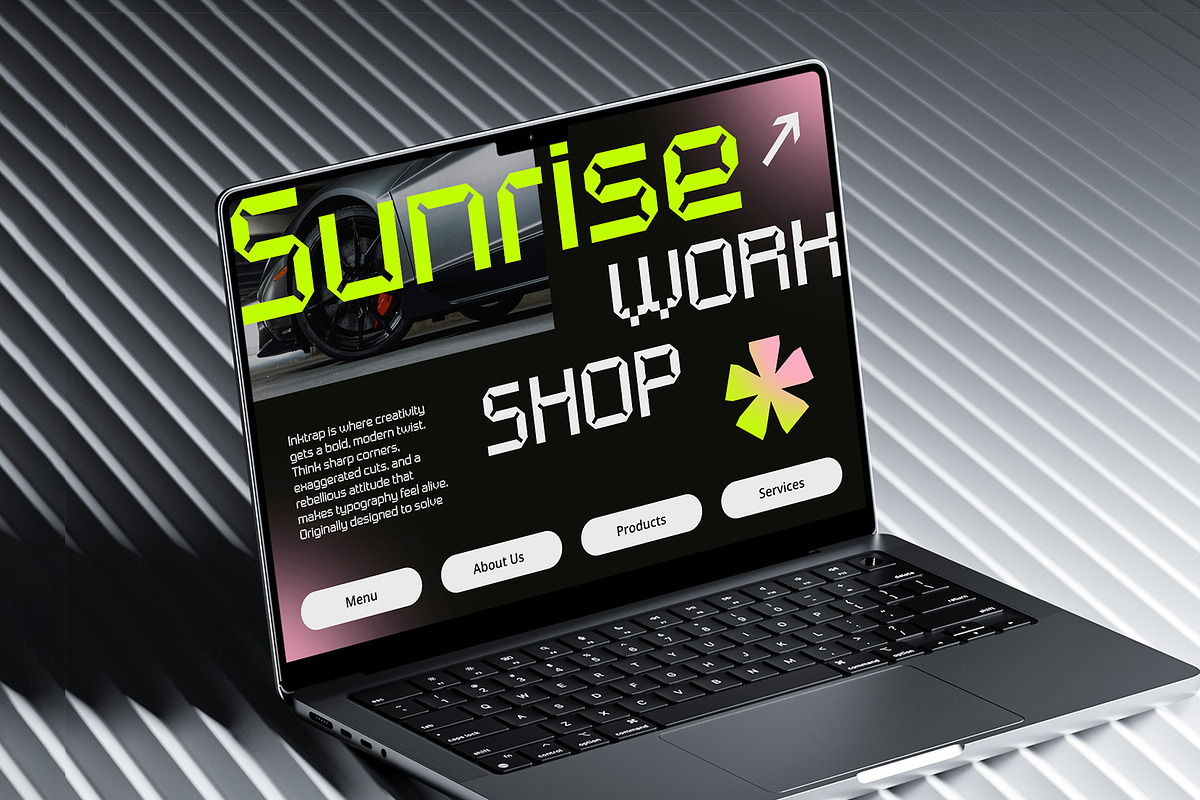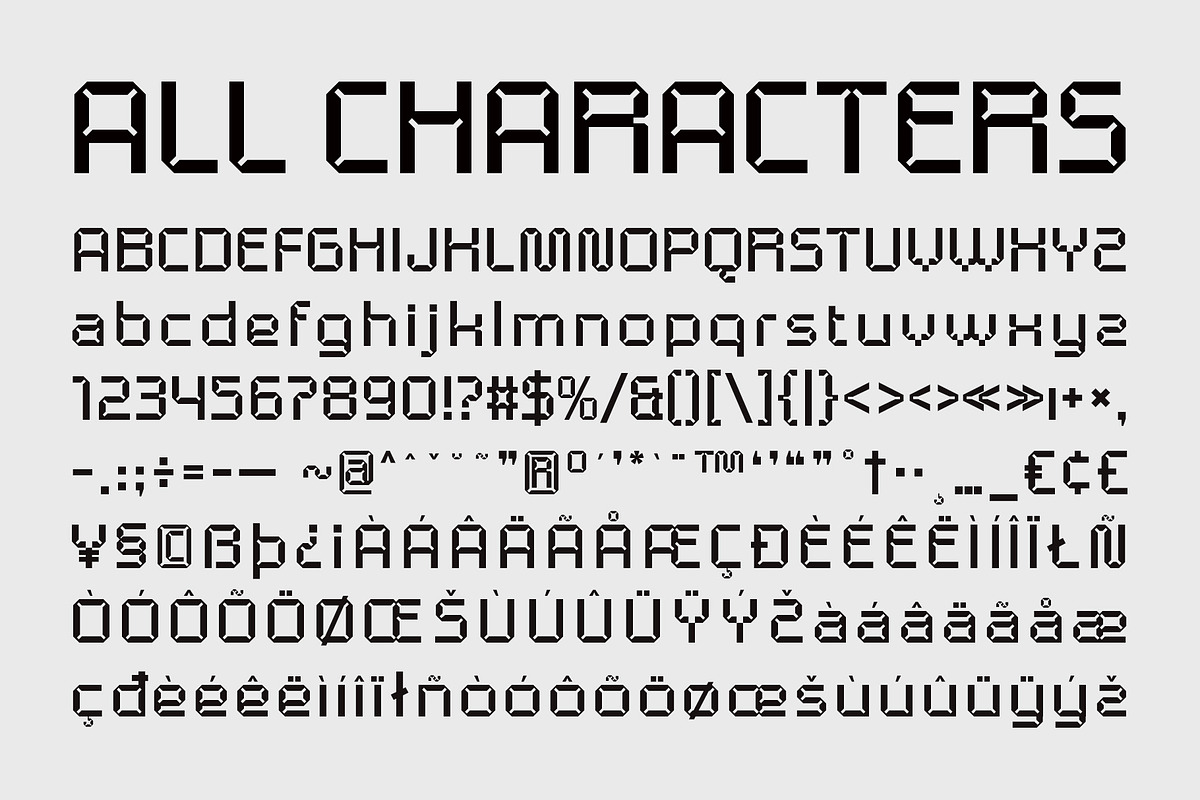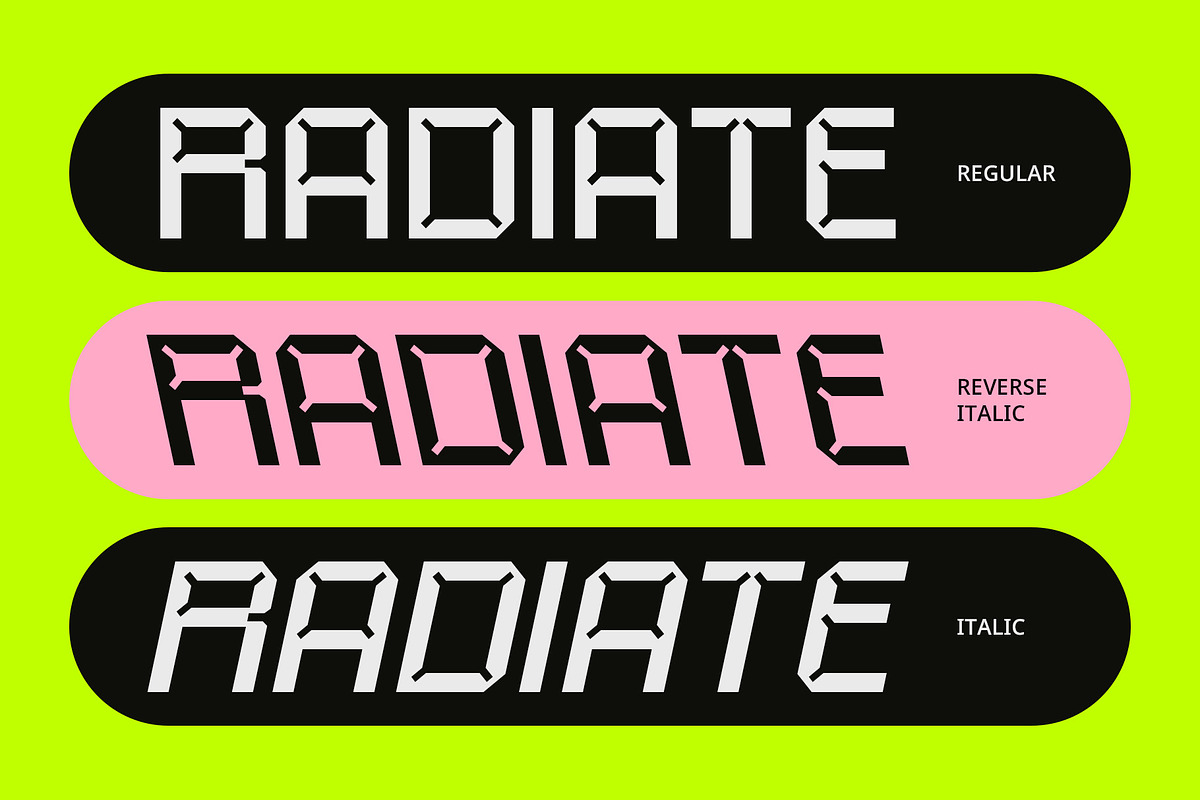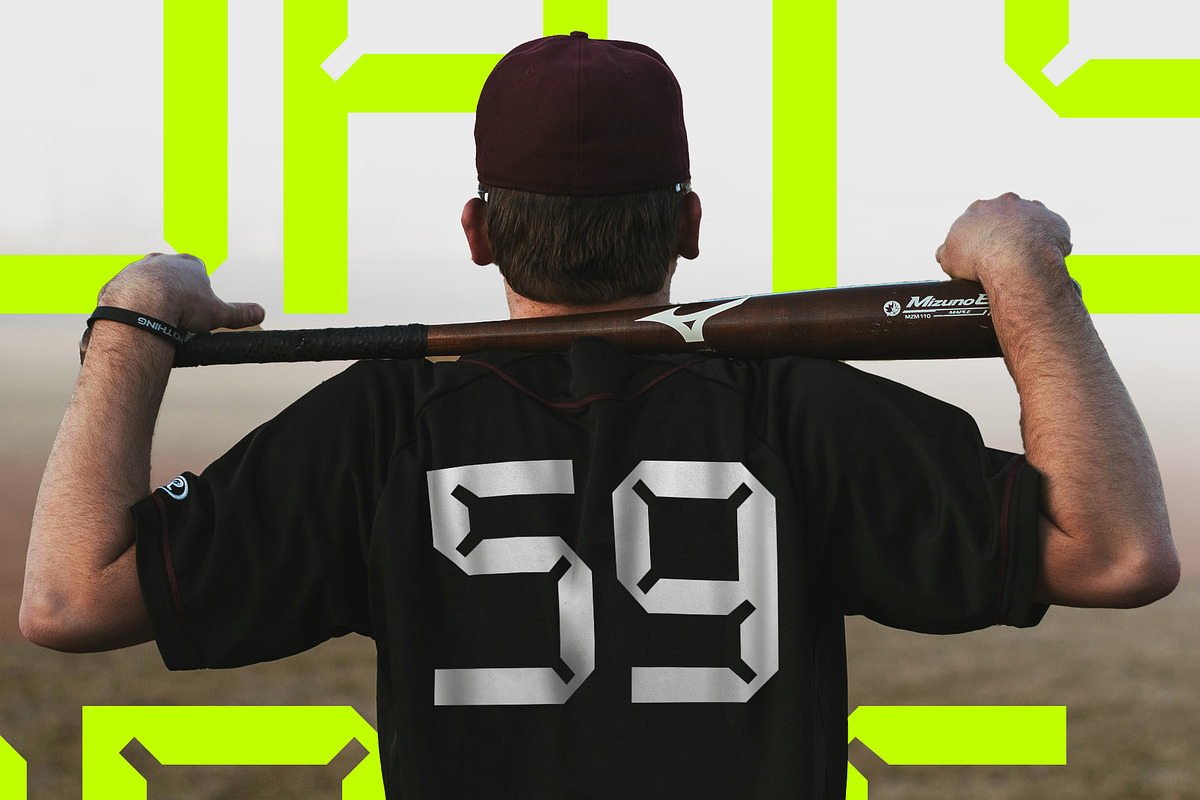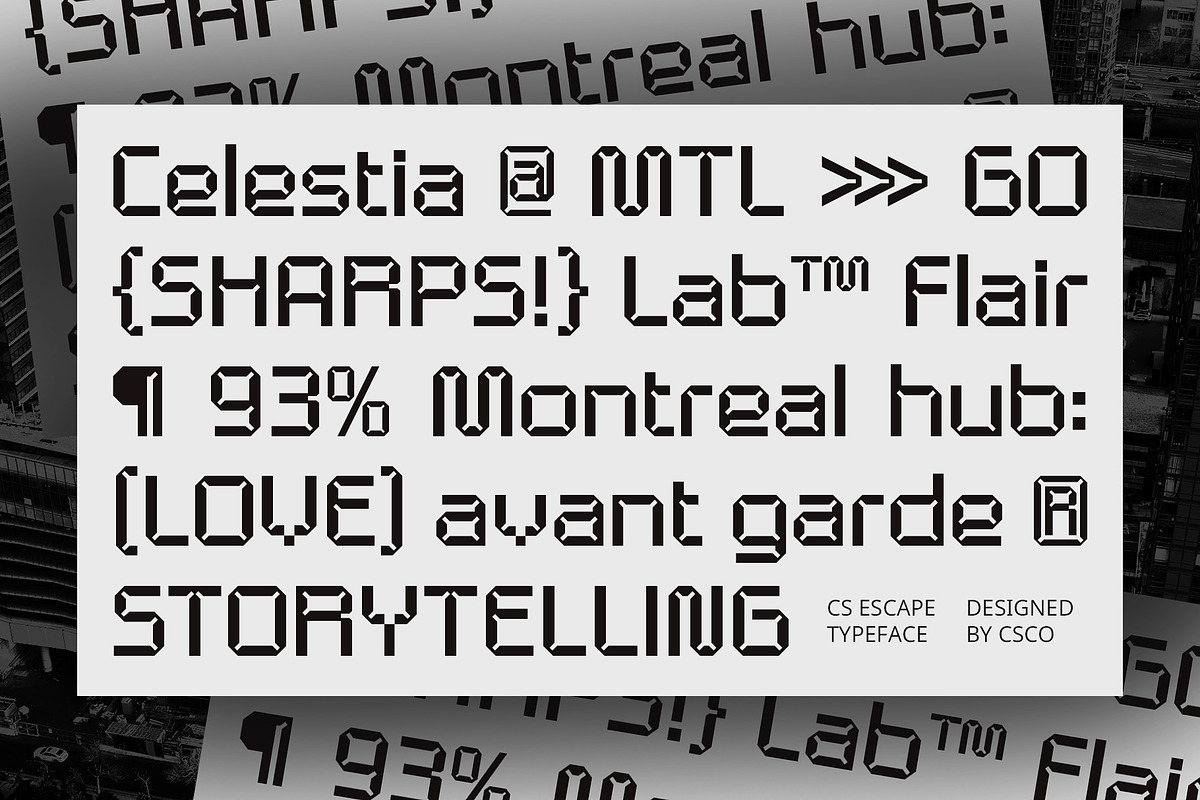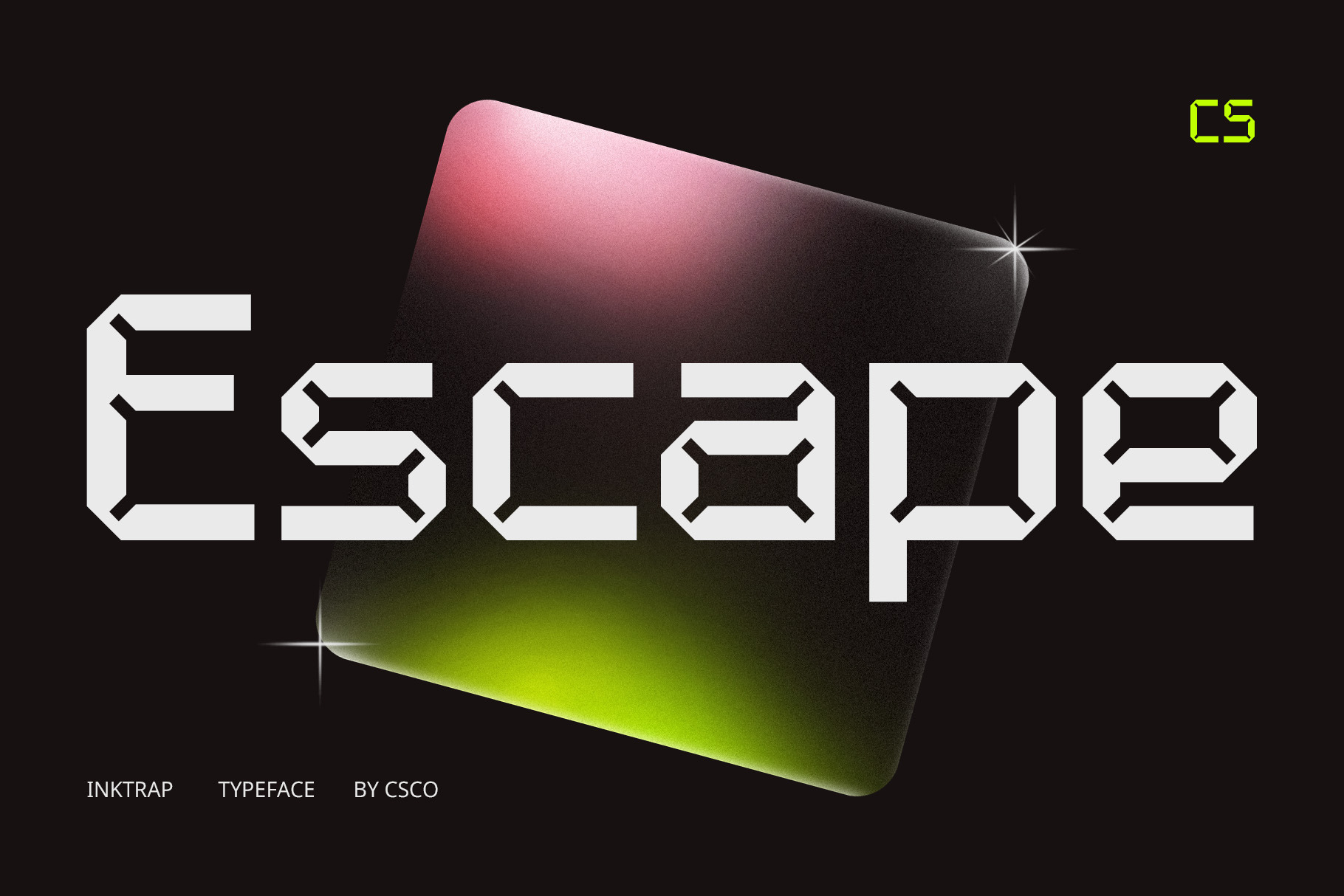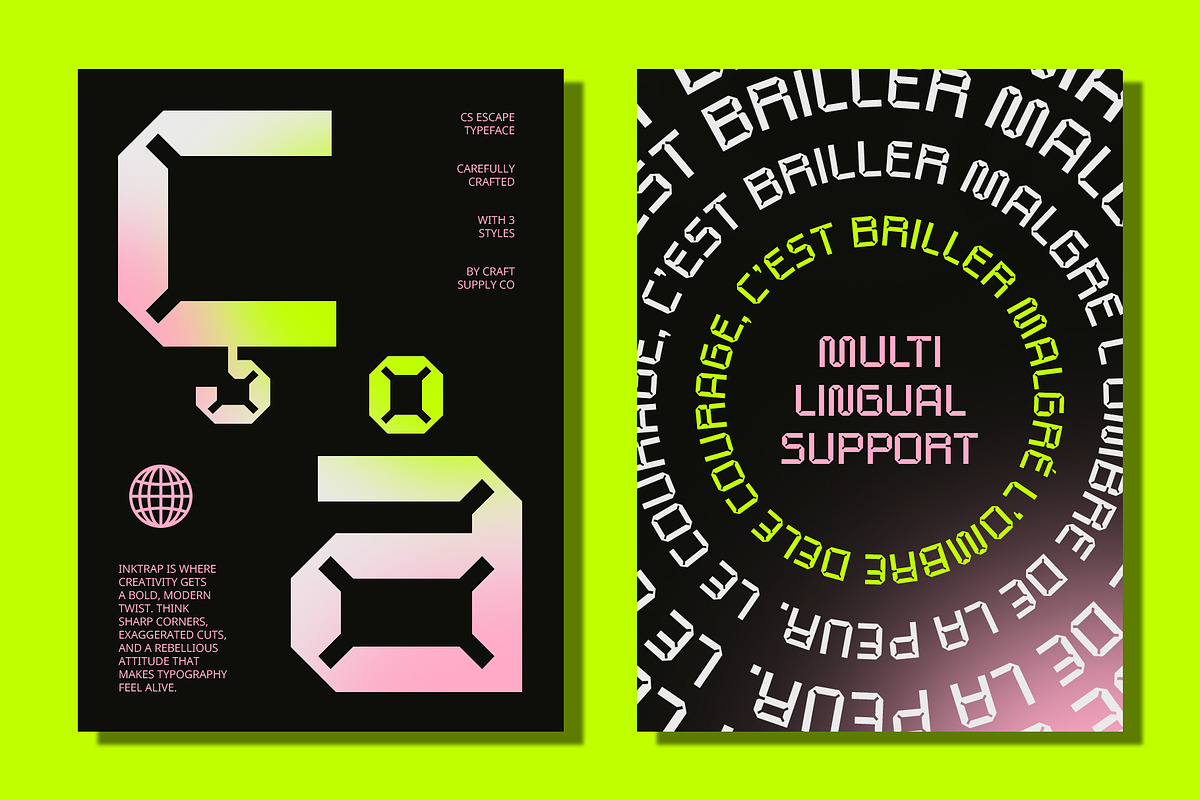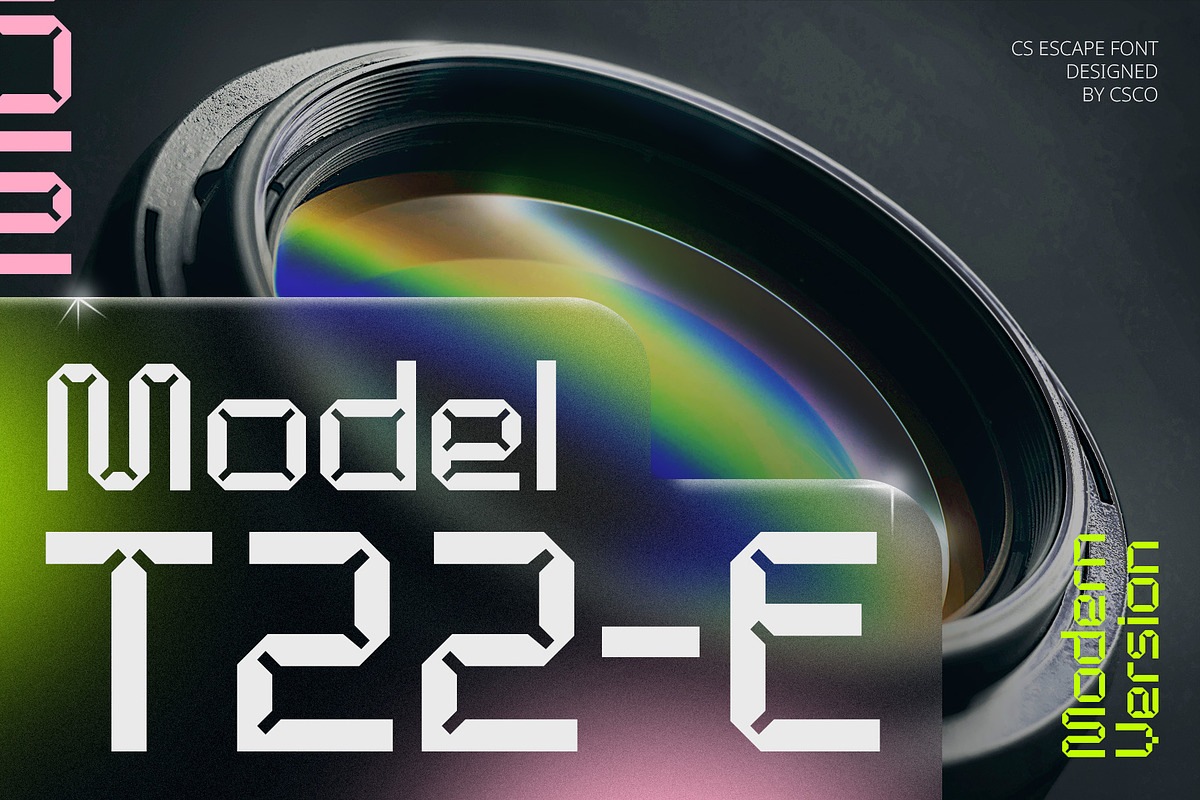
CS Escape – Inktrap Font
CS Escape – Inktrap Font: Modern, Functional, and Stylish
Inktrap Display Font with Modern Aesthetic CS Escape – Inktrap Font is a cutting-edge display typeface that seamlessly combines modern design with functional typography. Featuring an inktrap effect, this font introduces unique details where the corners of the letters are cut or rounded to create spaces, enhancing the visual appeal and balance of the design.
Sharp, Clean Lines for a Professional Look The design of CS Escape stands out with its clean and sharp lines, giving it a sleek and polished appearance. The inktrap details, subtly integrated into the letterforms, provide a perfect balance between modern style and practicality, ensuring that the typography remains legible without sacrificing visual appeal. This font’s streamlined look makes it ideal for professional designs where clarity is key, yet style cannot be compromised.
Versatile and Sophisticated for Various Applications CS Escape’s minimalist yet refined design makes it versatile across a range of uses. Perfect for branding, headlines, and corporate communications, this font conveys a sense of professionalism while retaining a modern flair.
Clear, Functional, and Stylish Typography CS Escape is perfect for projects that demand a contemporary feel without sacrificing readability. Its inktrap details, sharp letterforms, and clean design ensure it works seamlessly in various design applications, from high-end branding to sleek digital interfaces.
- CS Escape Regular
- CS Escape Italic
- CS Escape Reverse Italic